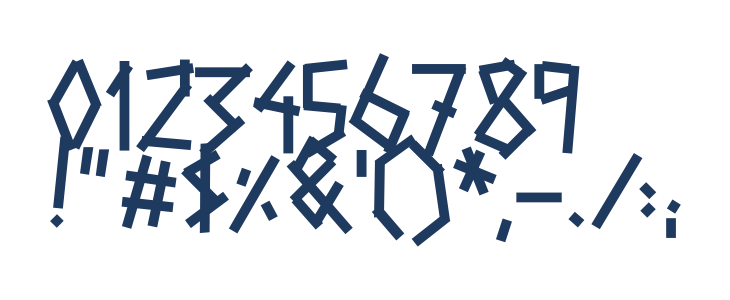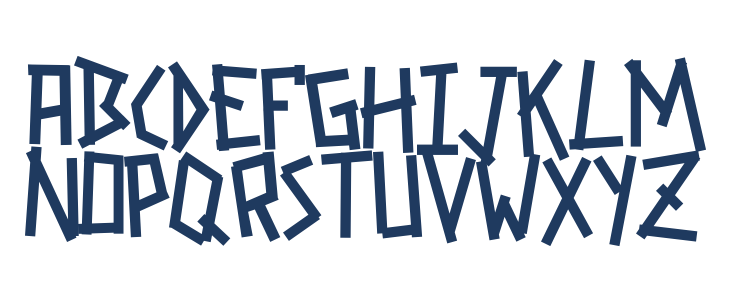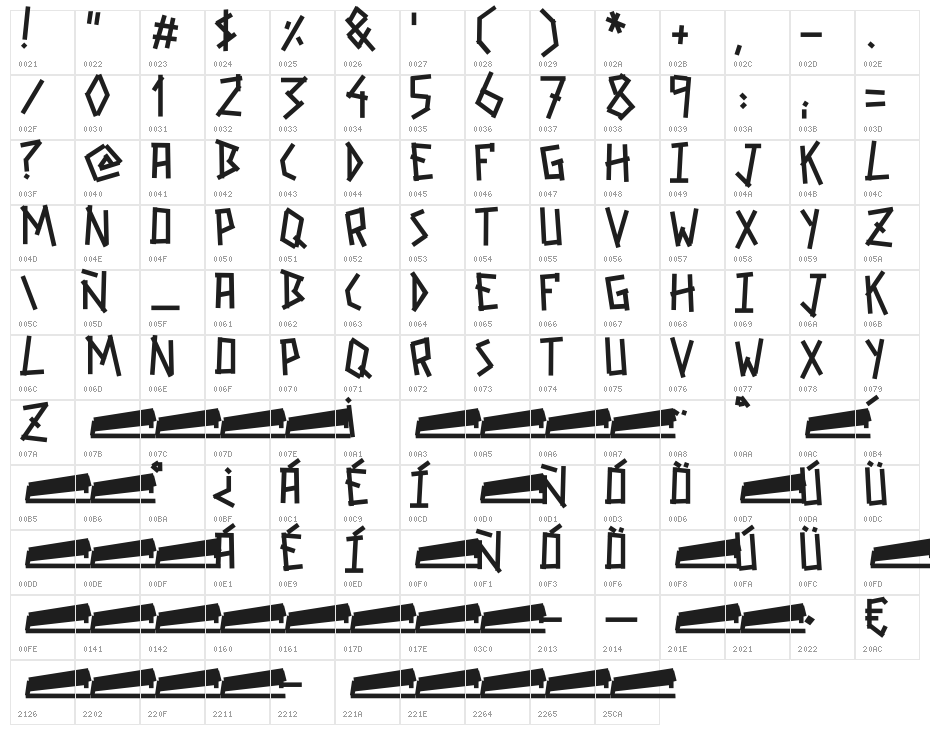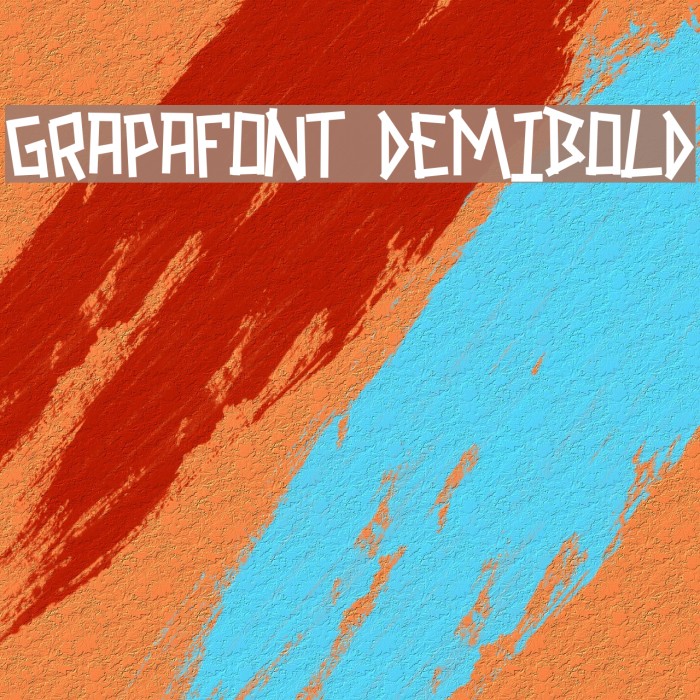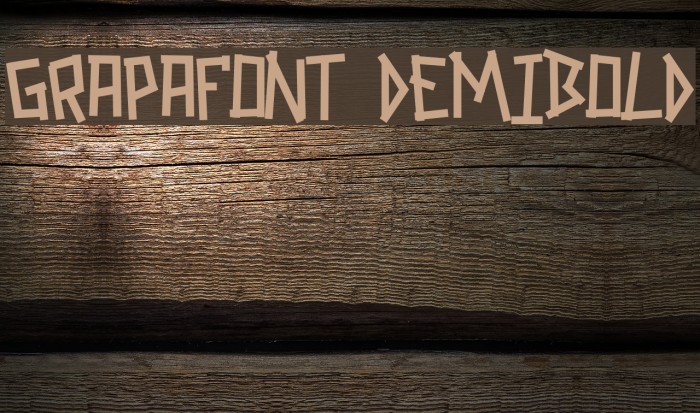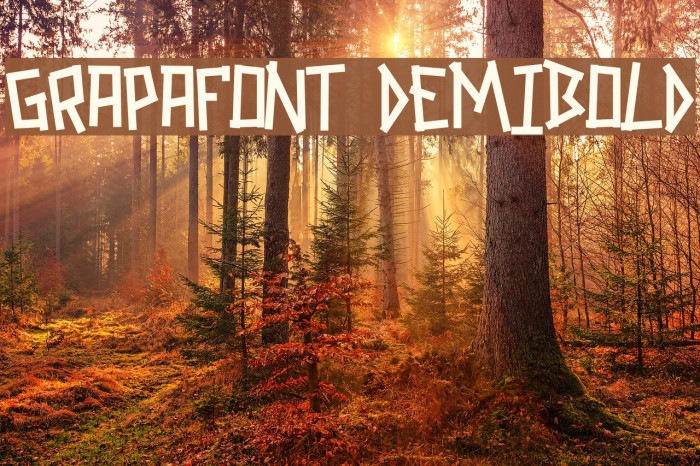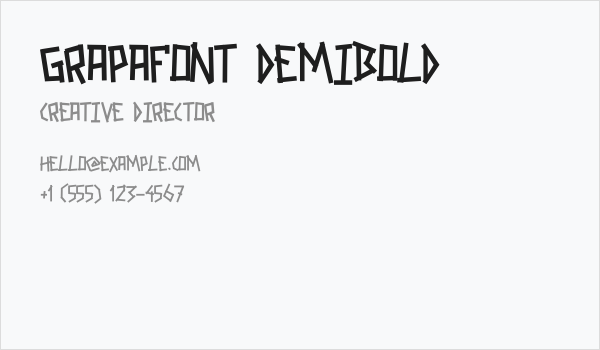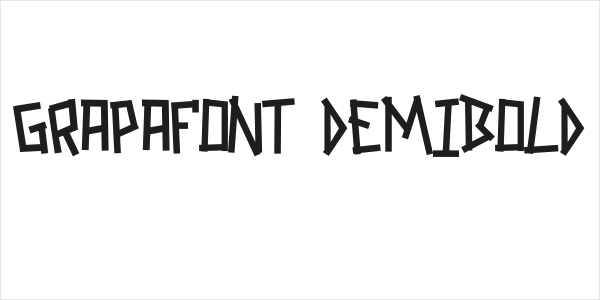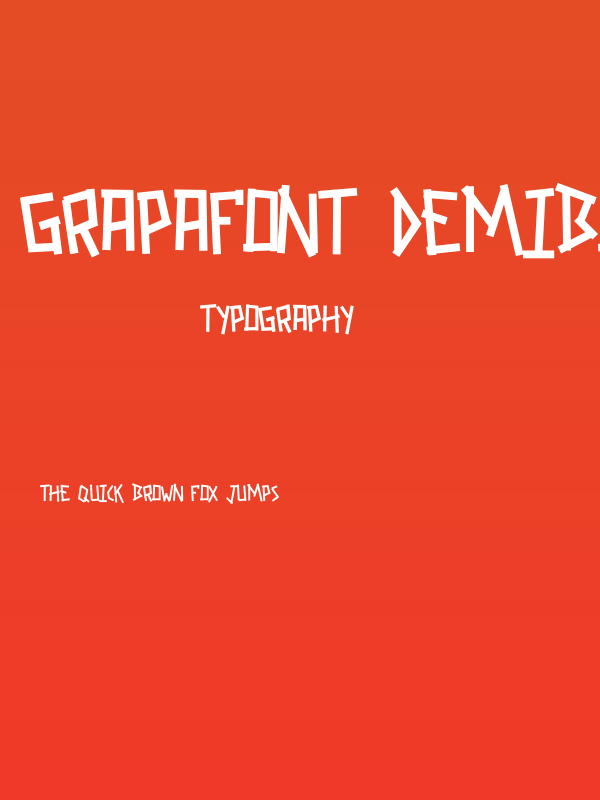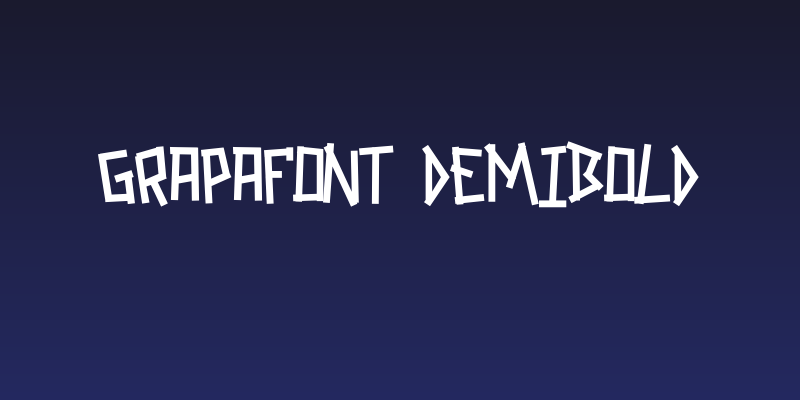
GRAPAFONT DemiBold Font
GRAPAFONT DemiBold Description
This font features a bold and angular design, characterized by its sharp, geometric lines and blocky appearance. Each letter is crafted with a distinct, edgy style that gives it a modern and rebellious feel. The uppercase and lowercase letters maintain a consistent height, contributing to a uniform look across the typeface. Numbers and special characters follow the same angular theme, ensuring cohesion throughout. The font's unique style makes it stand out, ideal for projects that require a strong visual impact. Its boldness and distinctive character make it suitable for attention-grabbing headlines and designs.